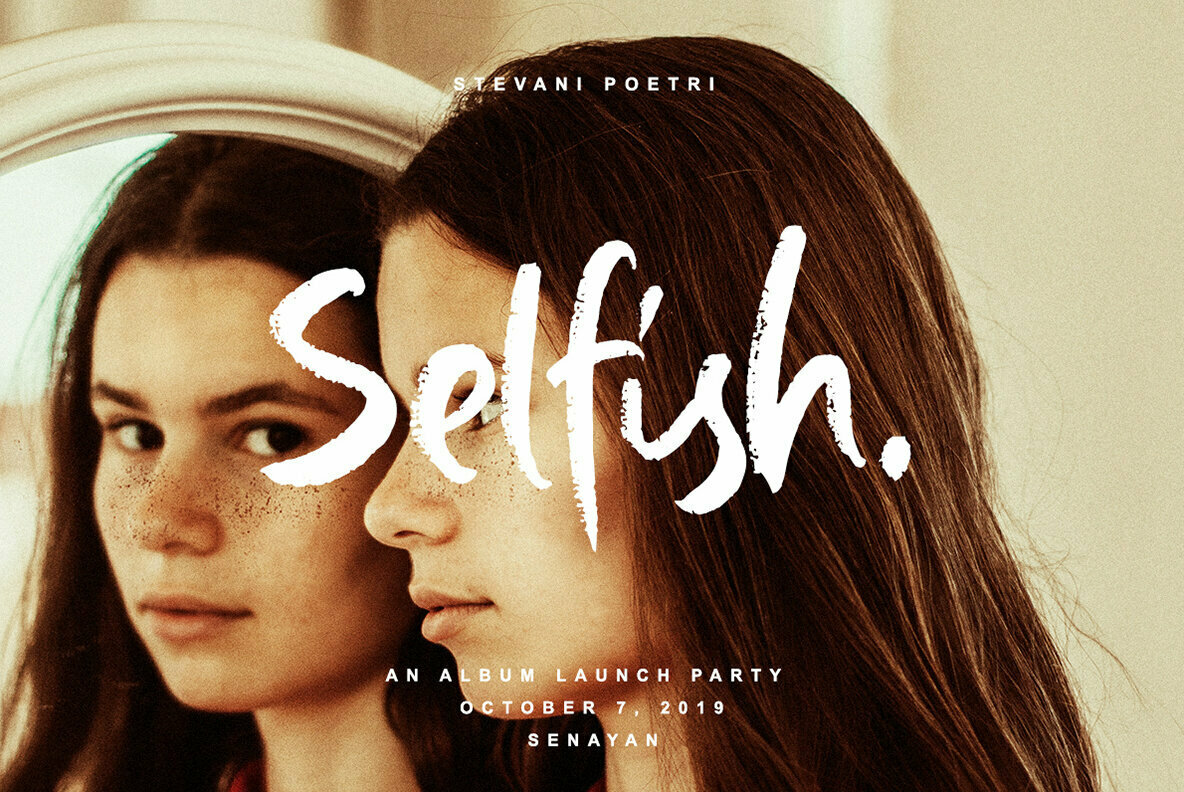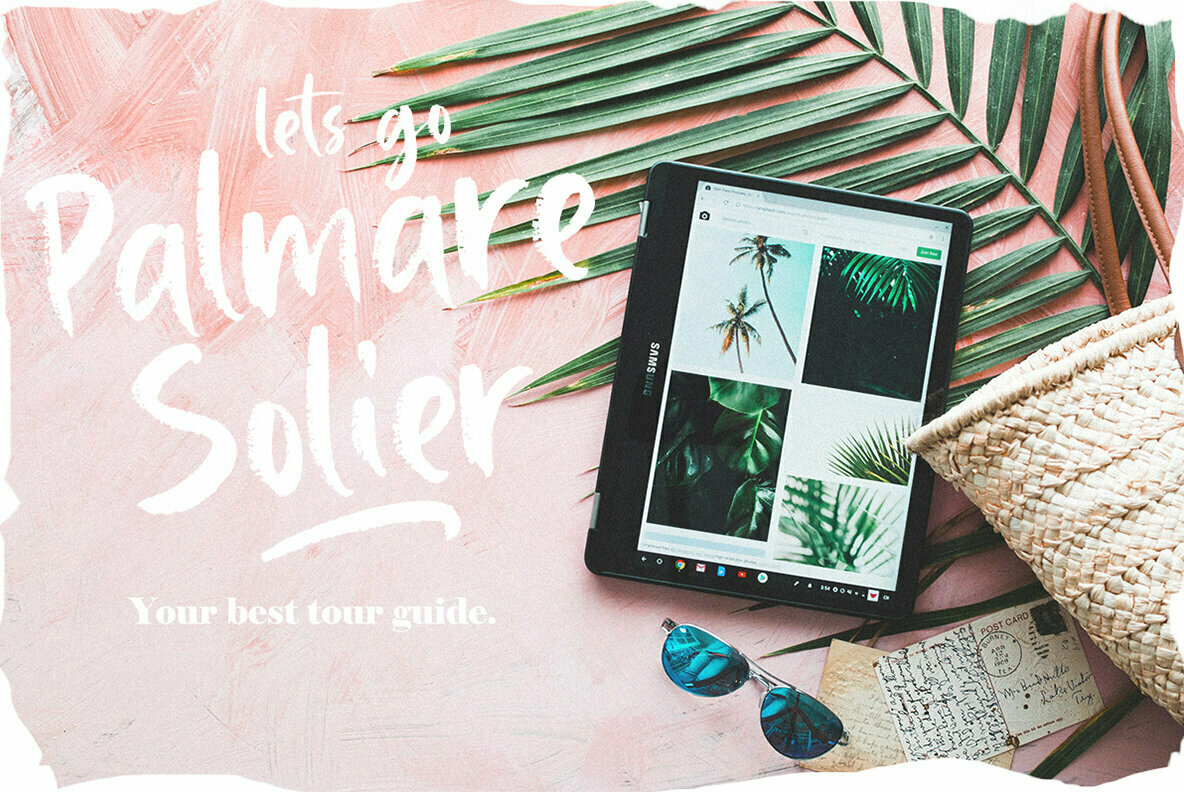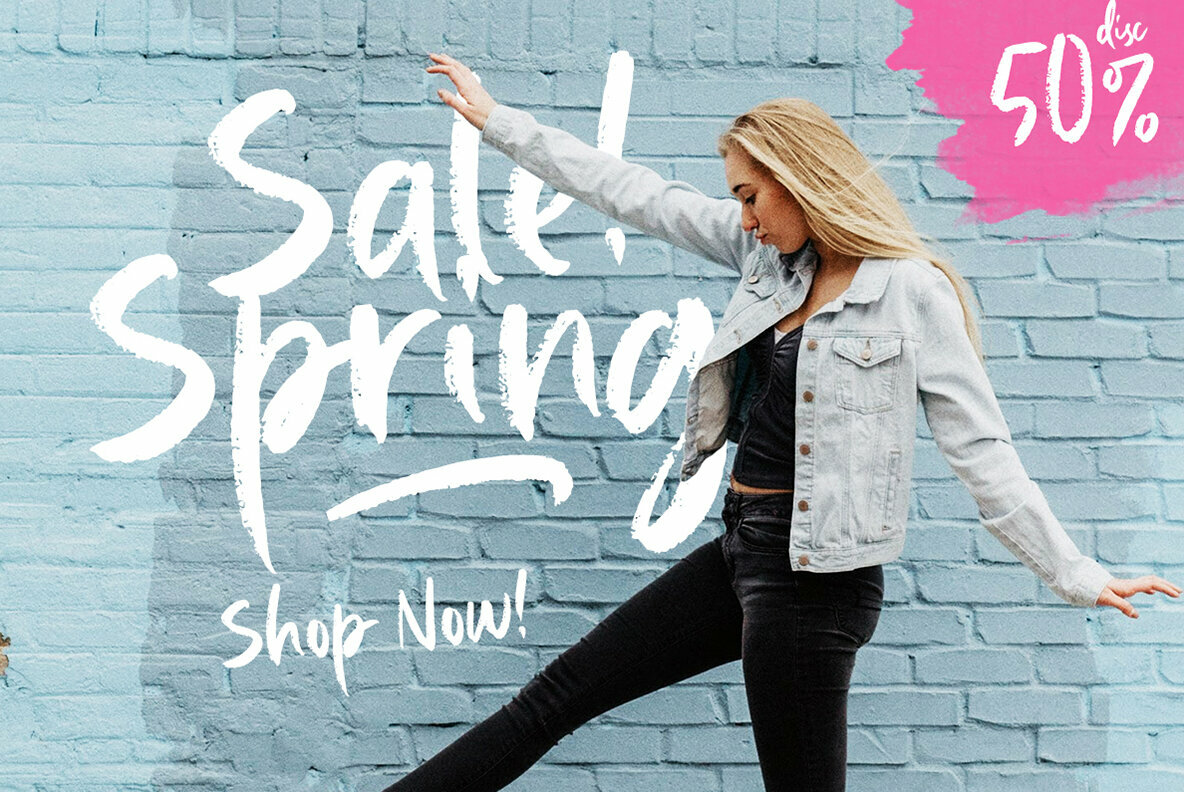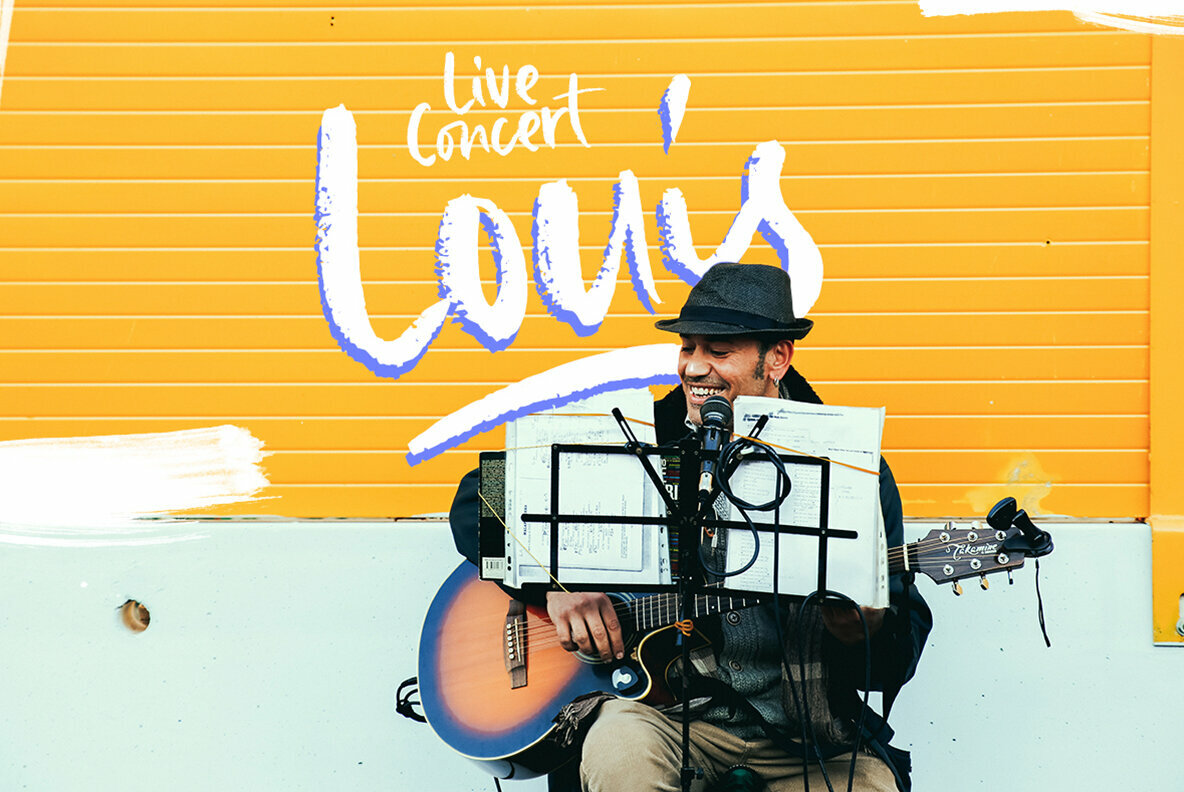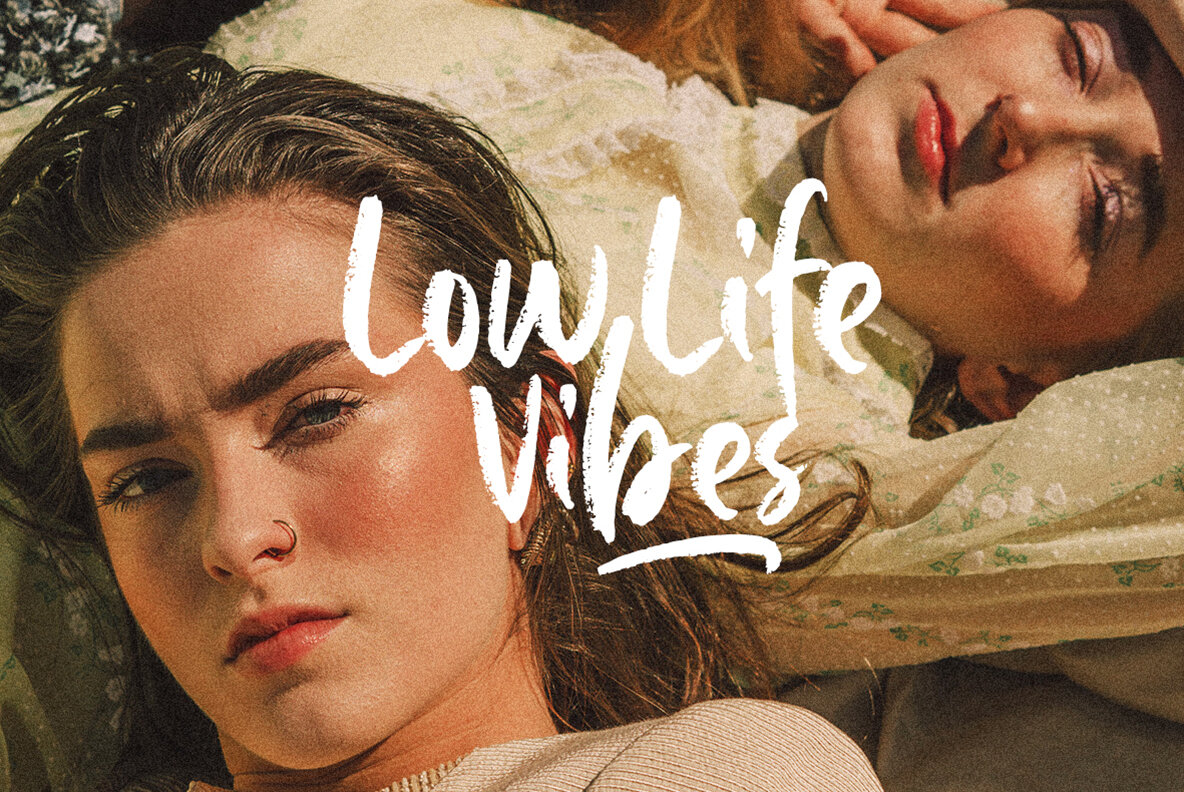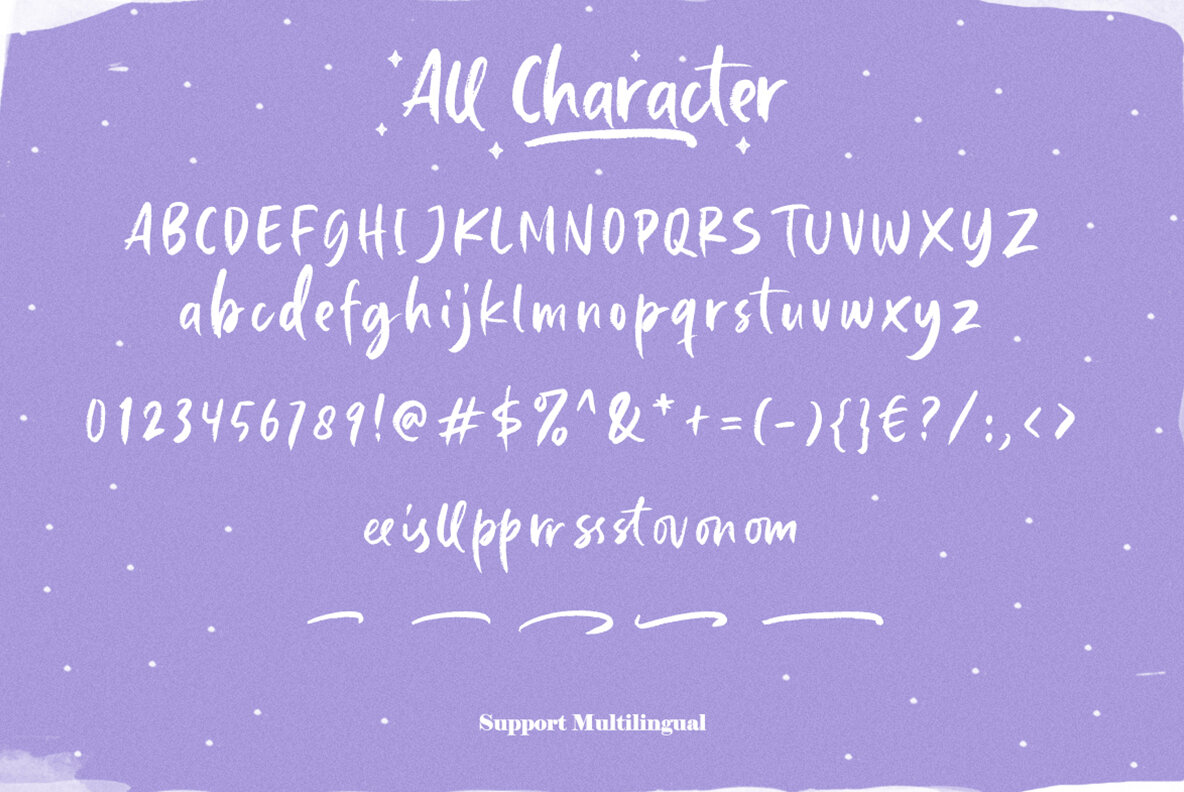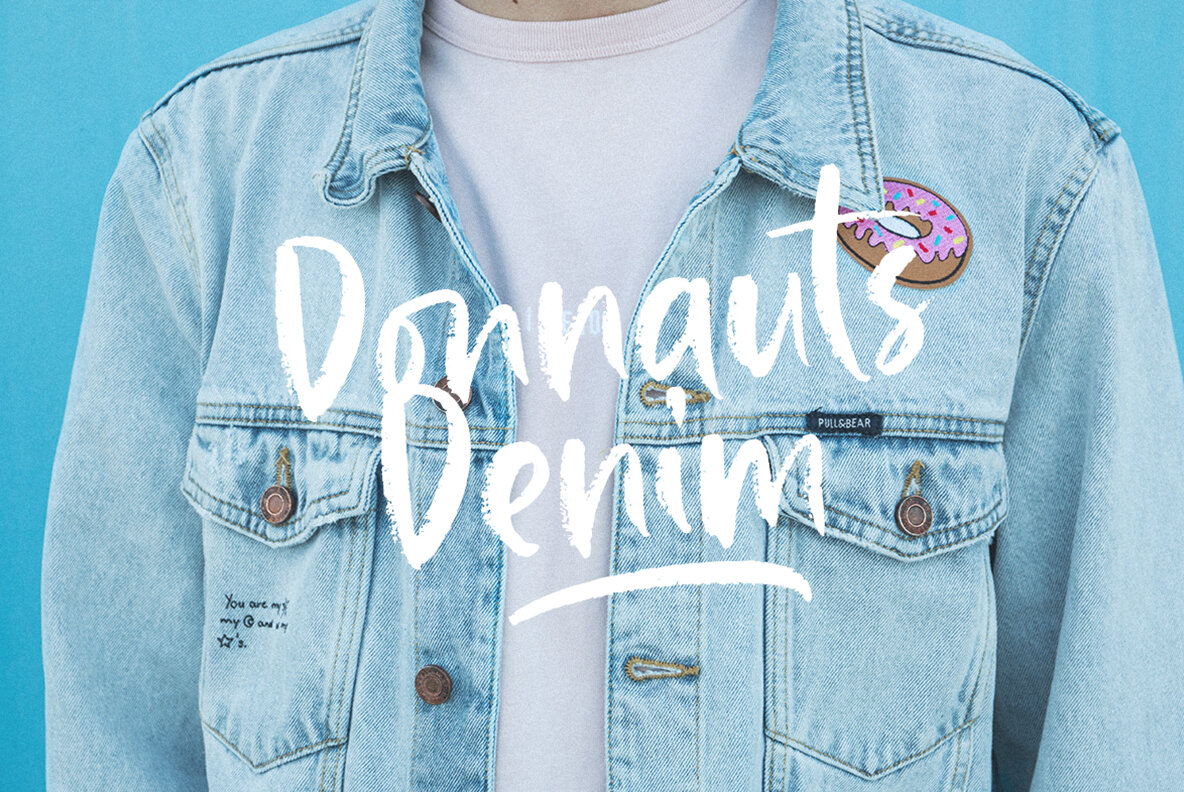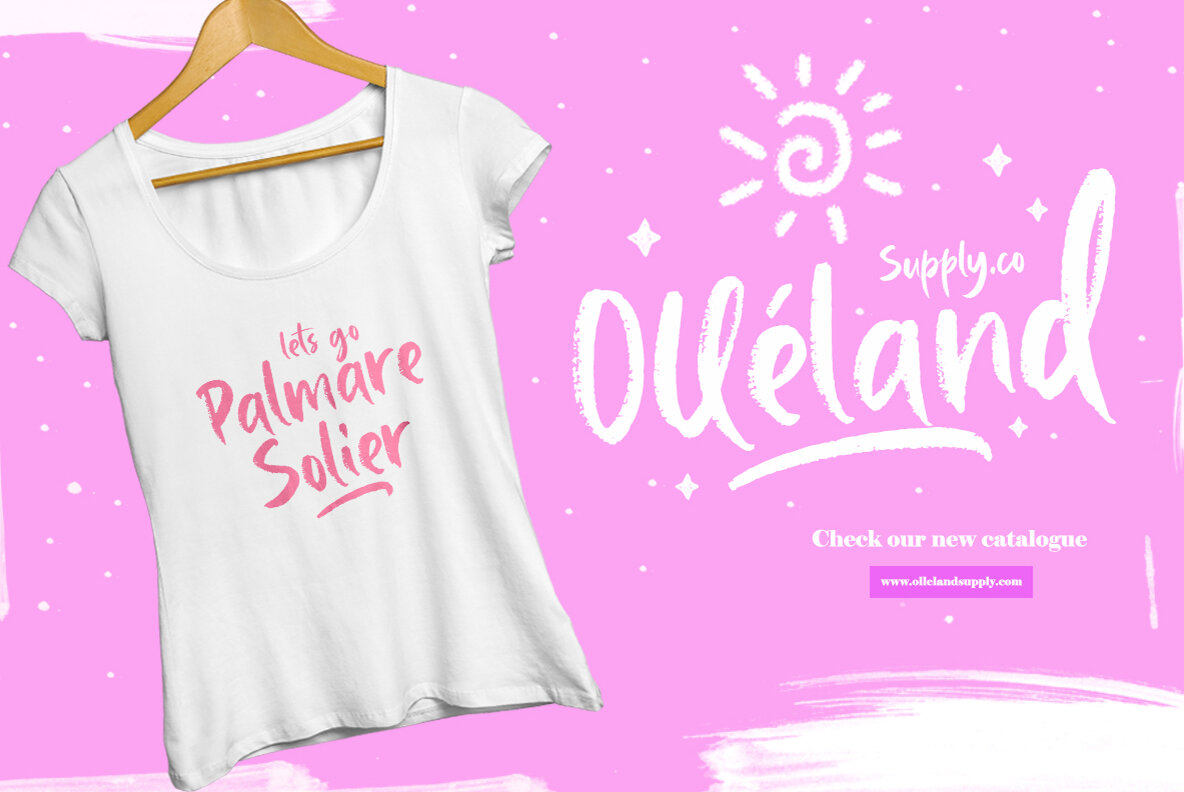
Baille Simpson Font
Baille Simpson Regular
Baille Simpson offers a distinctive dry brush typeface that combines the allure of natural handwriting with a feminine touch. This font excels in applications ranging from logos to formal invitations, embodying a unique style that adapts effortlessly to various design needs. Its versatility makes it a suitable choice for magazines, books, greeting and wedding cards, as well as packaging, fashion, makeup, stationery, novels, or any advertising purpose. For optimal use, we suggest utilizing software compatible with OpenType features and Glyphs panels, such as Adobe applications or Corel Draw, to explore the full range of glyph variations Baille Simpson has to offer.Baille Simpson: A Brush Typeface with Feminine Elegance